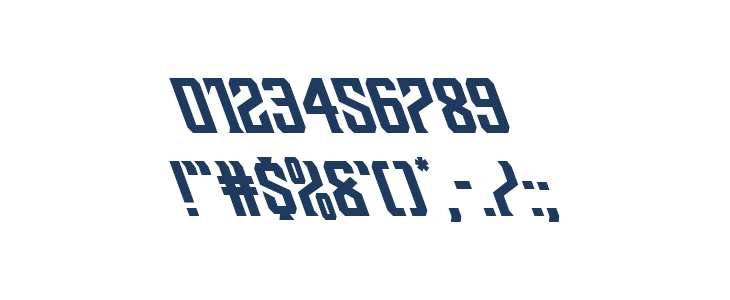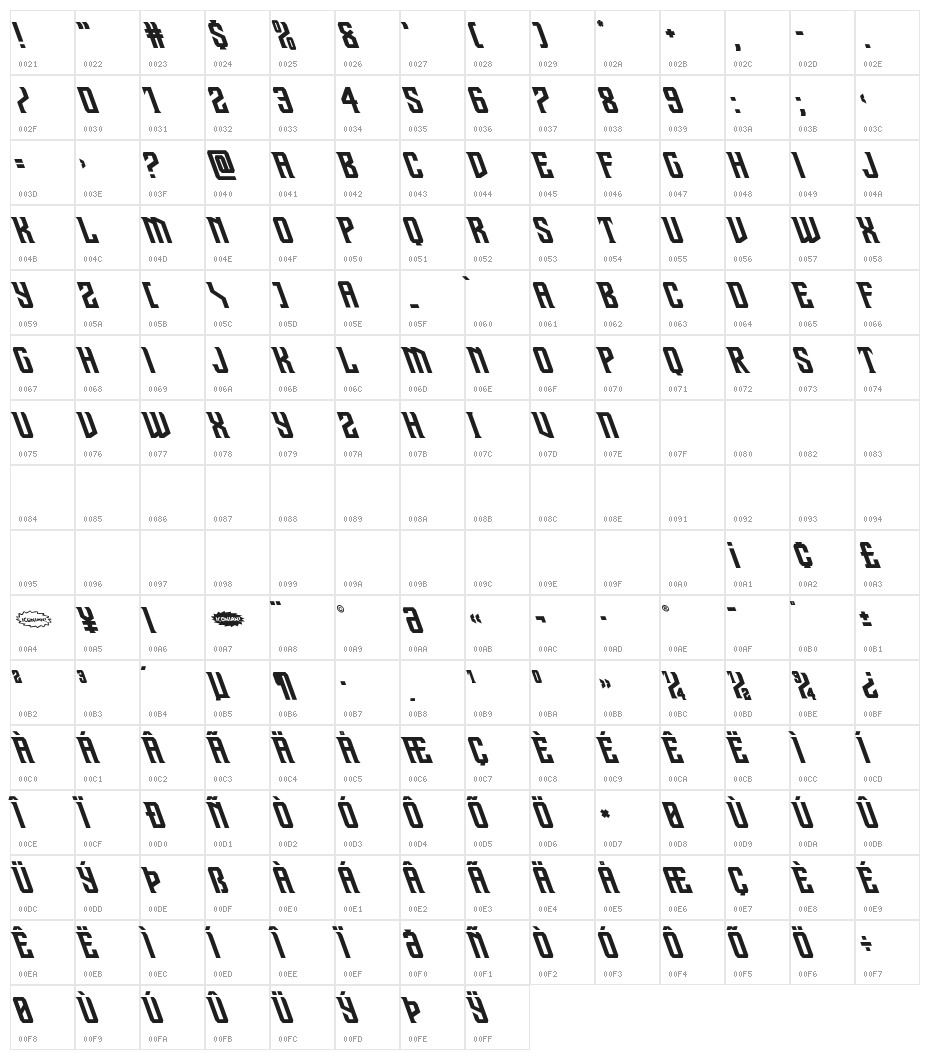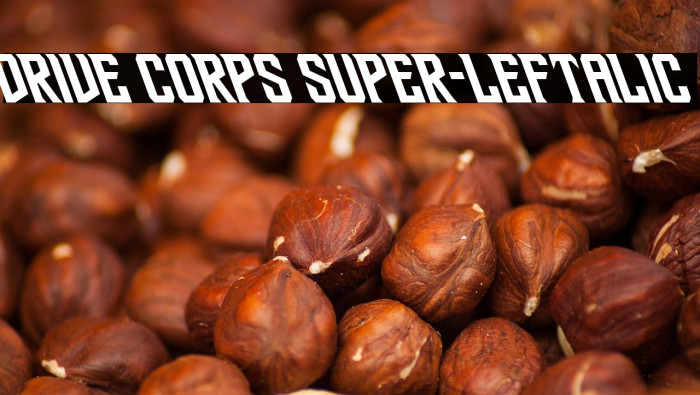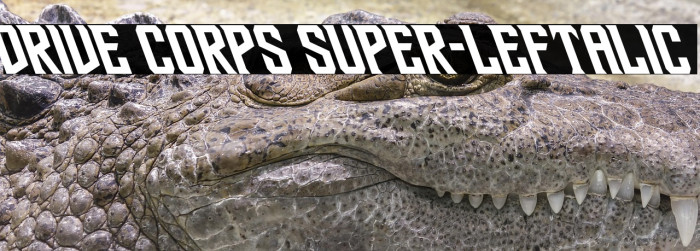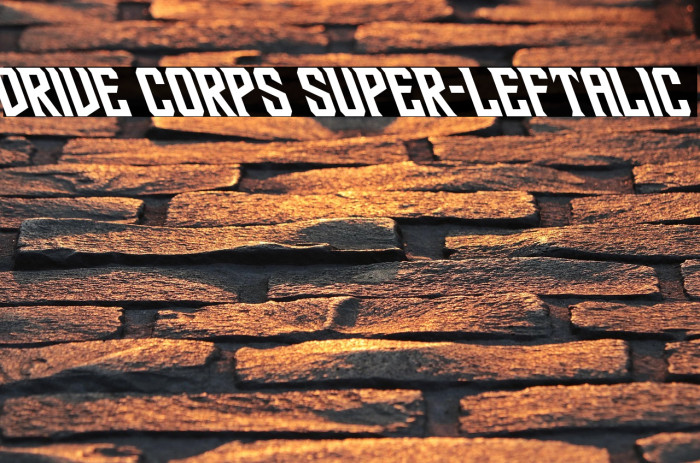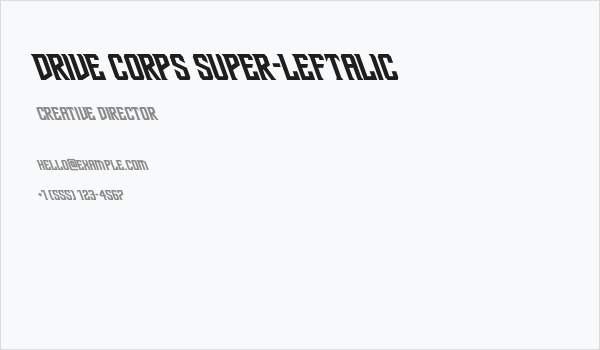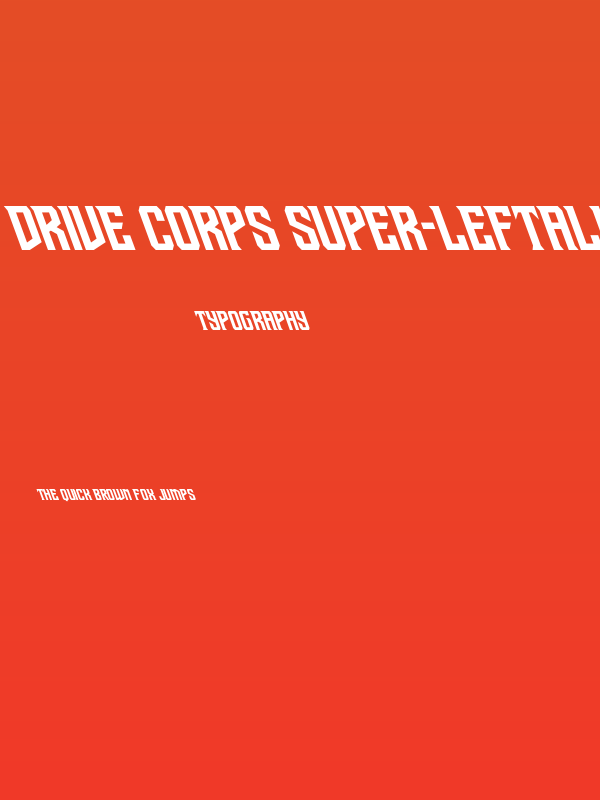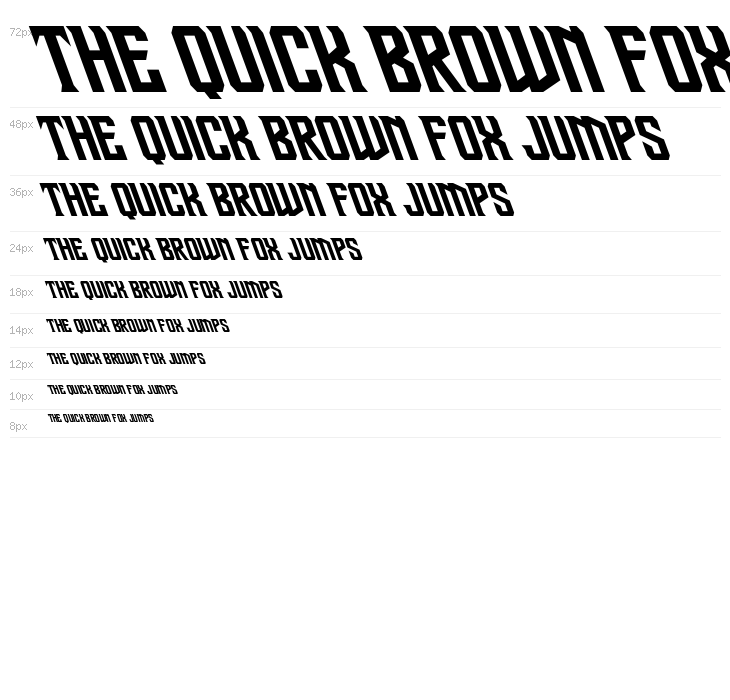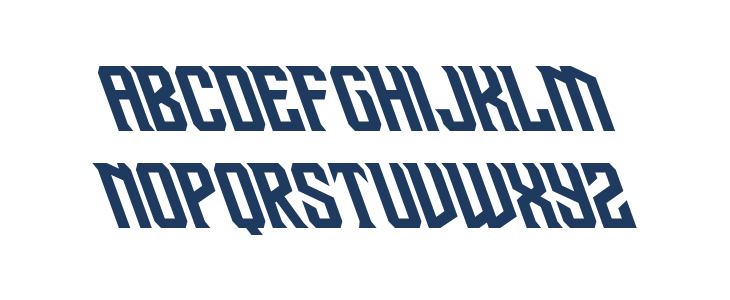
Drive Corps Super-Leftalic Font
Drive Corps Super-Leftalic Description
This font features a bold and dynamic style with a strong geometric influence. The characters are sharply angled, giving a sense of movement and energy. The uppercase and lowercase letters maintain a consistent width, contributing to a uniform appearance. The numbers and special characters follow the same angular design, ensuring cohesion across all elements. The font's distinct slant adds a sense of urgency and modernity, making it suitable for attention-grabbing designs.